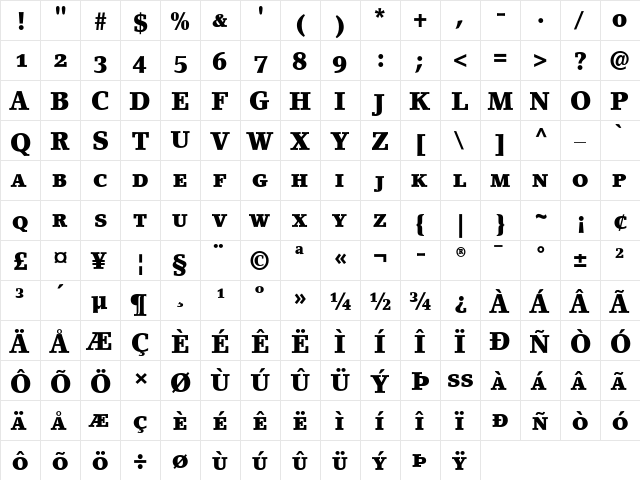
LinoLetter MediumSC Bold
Design Context for LinoLetter MediumSC Typeface
LinoLetter MediumSC is a composed and adaptable typeface that performs quietly and consistently across a wide range of design contexts. The heavy weight commands attention and anchors typographic hierarchies.